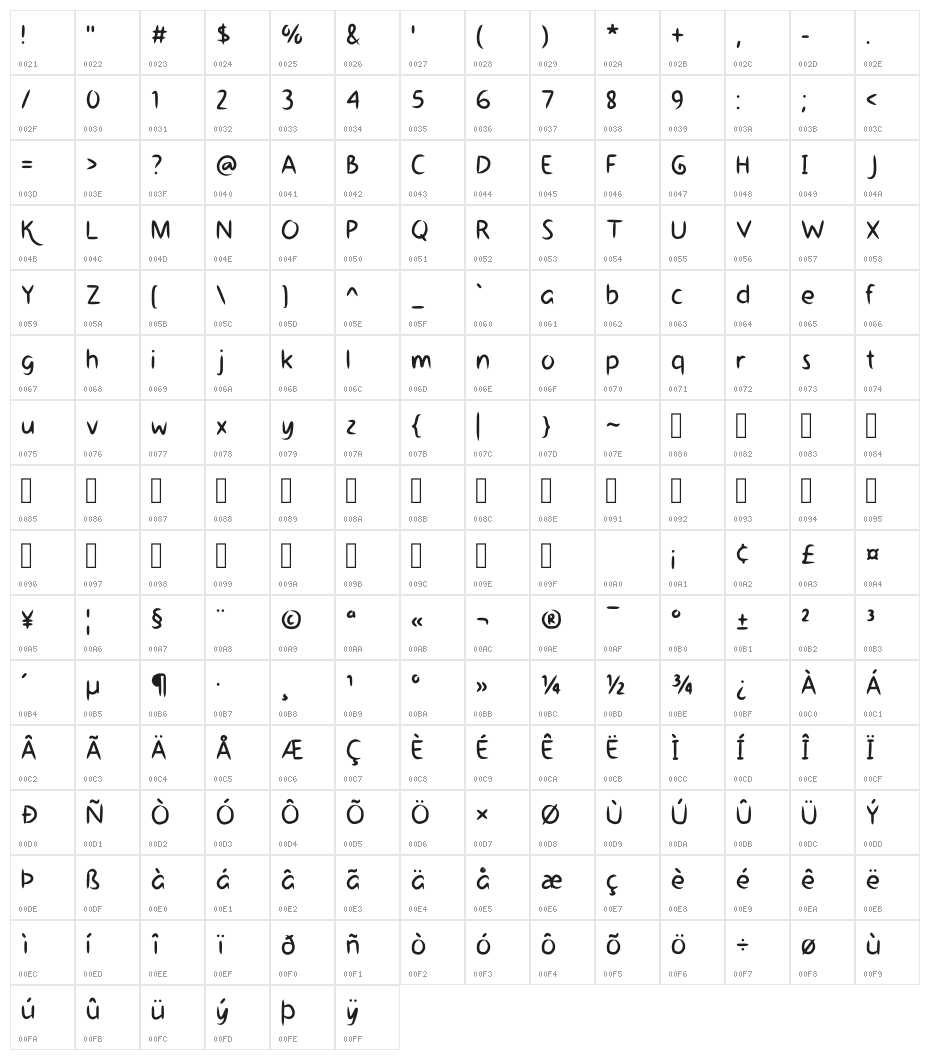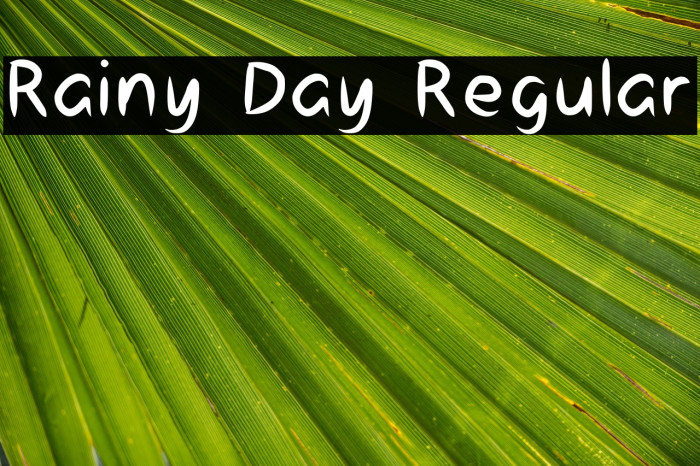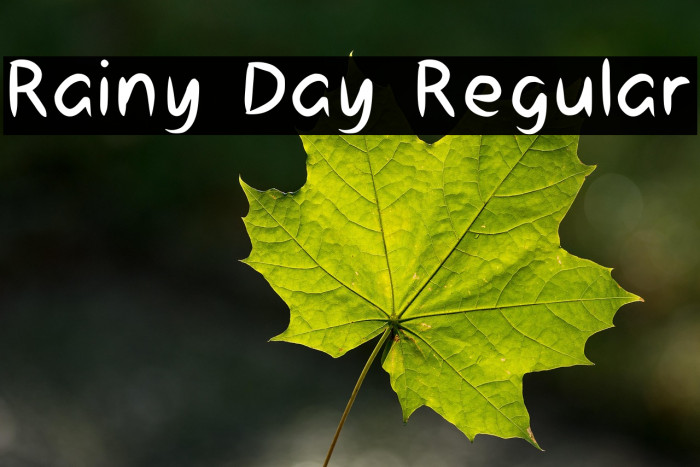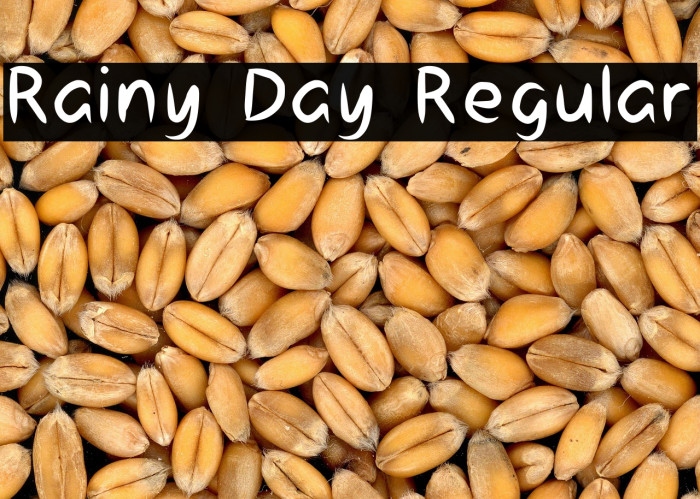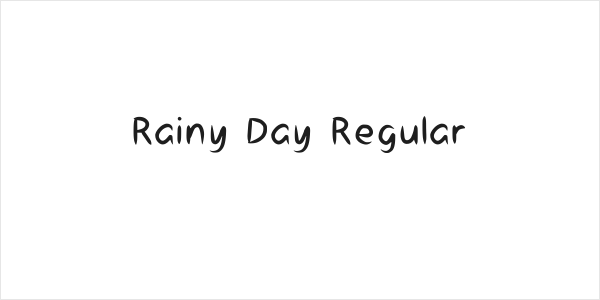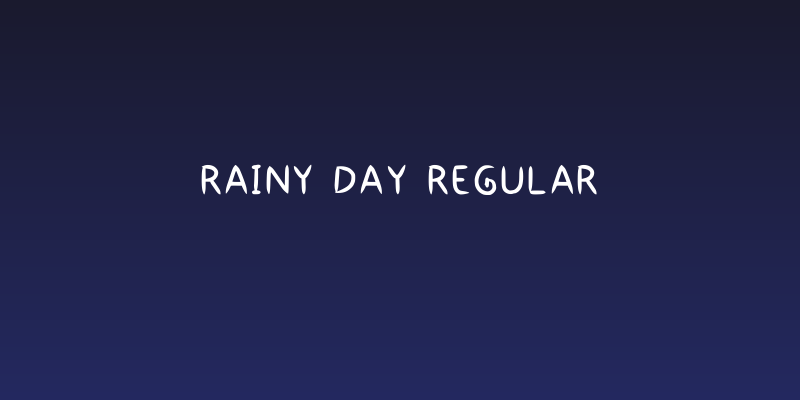
Rainy Day Regular Font
Rainy Day Regular Description
This playful and whimsical font features a handwritten style with a casual and friendly appearance. The letters are slightly irregular, adding a personal touch that mimics natural handwriting. The strokes are smooth and rounded, giving it a soft and approachable feel. The font maintains a consistent weight throughout, with medium contrast between thick and thin strokes. It is versatile and can be used to convey a sense of warmth and informality. The characters are well-spaced, ensuring readability while maintaining its unique style. This font is ideal for projects that require a touch of personality and creativity.
| Proposed Projects | Greeting cards, children's books, personal blogs, creative invitations, and casual branding. |